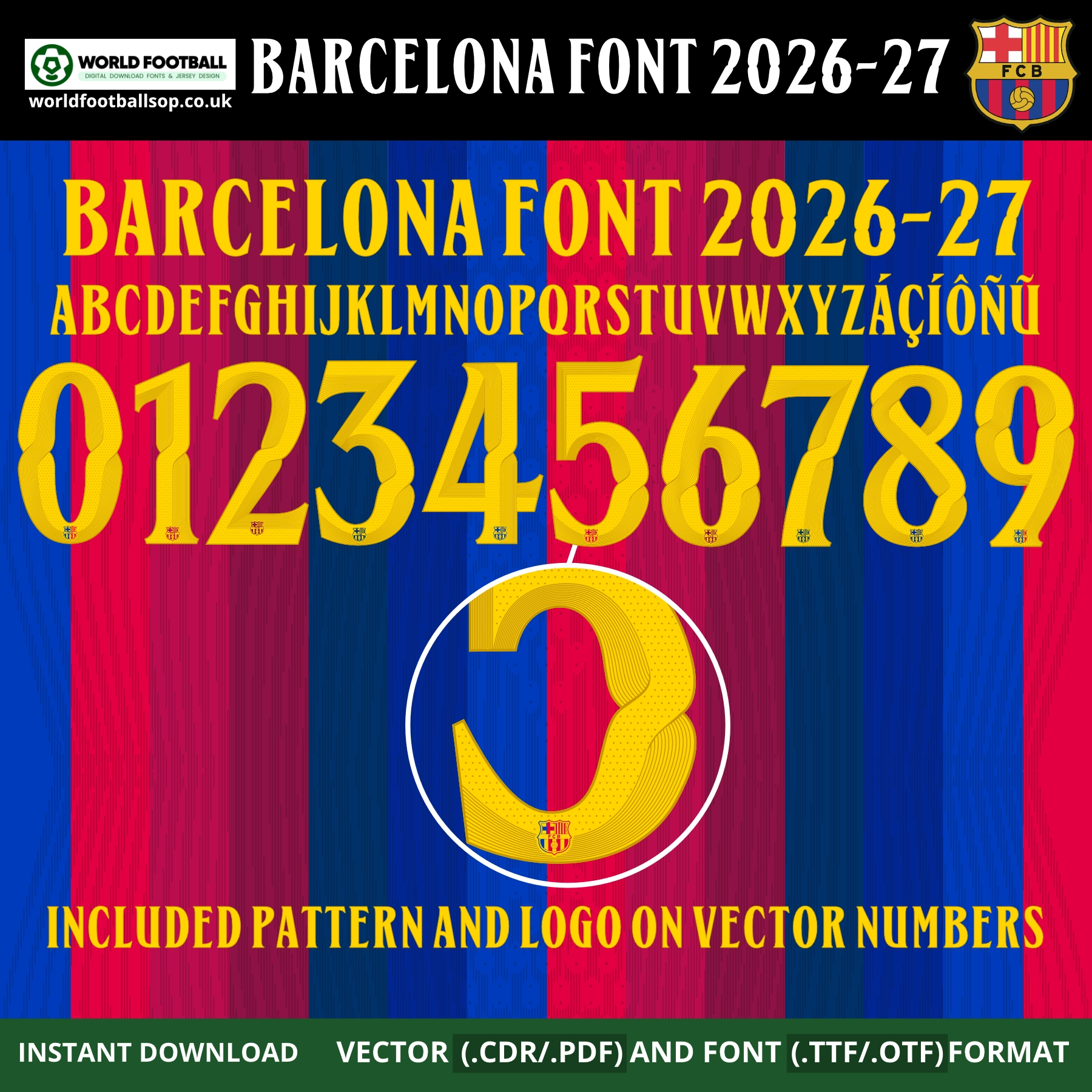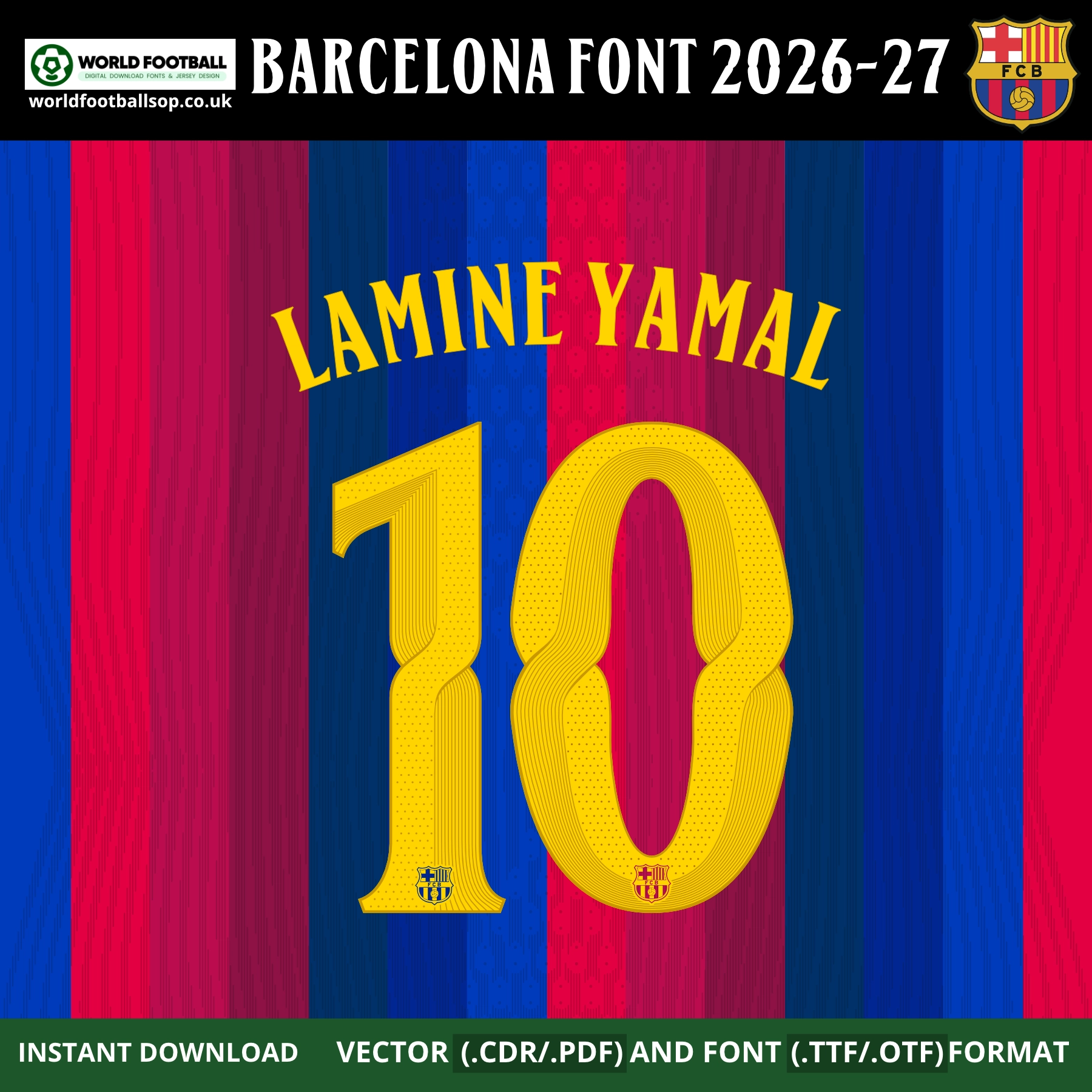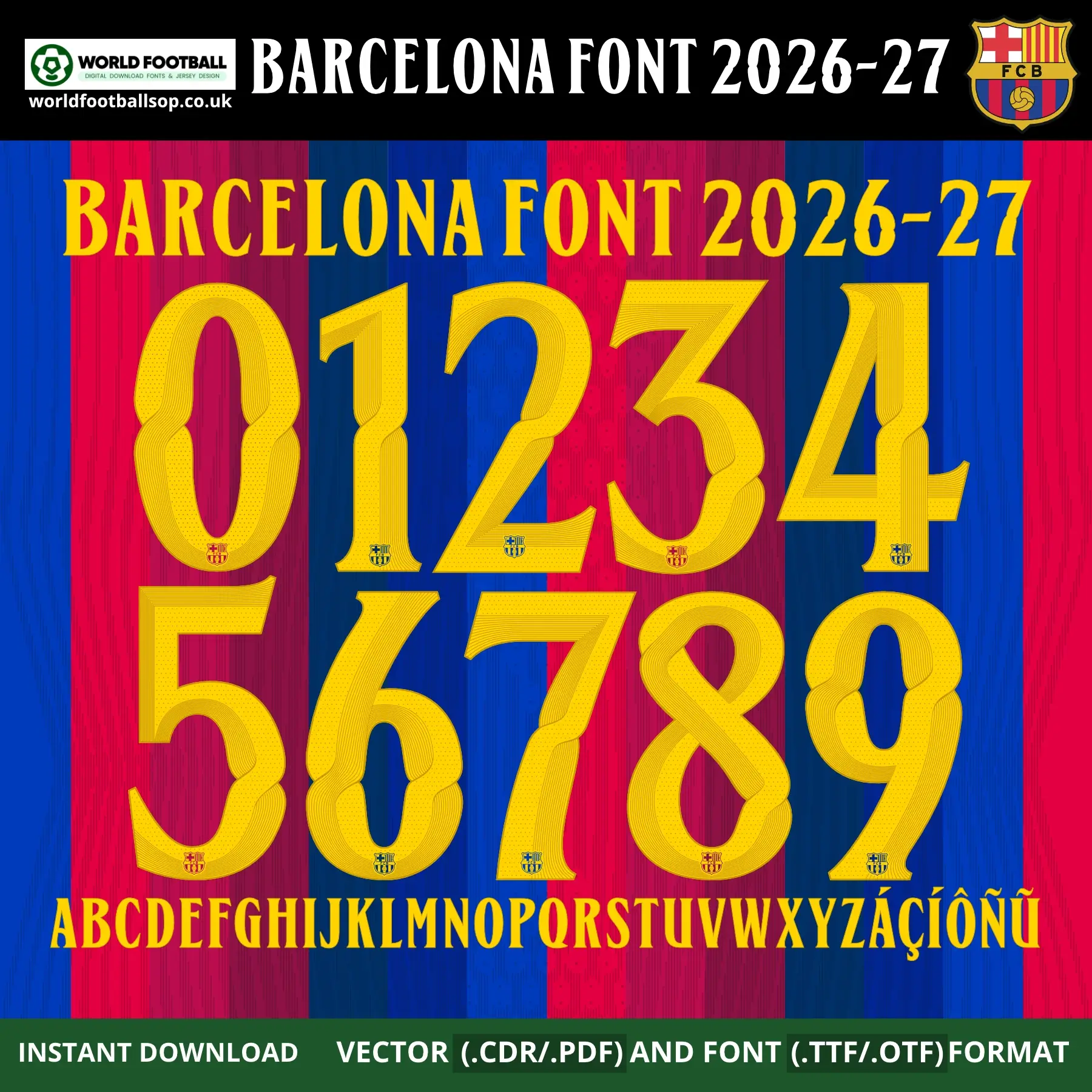
Official-style FC Barcelona 2026-27 UCL jersey font — bold yellow lettering with the multi-layer contour effect, full A–Z with accents and 0–9 numbers. Instant download: TTF, OTF and vector (CDR, PDF), Barça crest included on vector numbers.
Barcelona Font UCL 2026-27 – Official‑style Jersey Typography
This Barcelona Font UCL 2026-27 recreates the bold, decorative lettering used on FC Barcelona’s iconic blaugrana home shirts for the 2026-27 UEFA Champions League season at the Spotify Camp Nou. The tall, elegant numbers and letters feature a vibrant yellow fill with a fine multi-layered contour effect running through each character, giving the font a textured, premium look that mirrors Barça’s unmistakable kit identity. Set against the classic blue and red vertical stripes, this font is perfect for fans, designers and print shops who want authentic-looking names and numbers on custom Barcelona jerseys and football graphics.
The font football is supplied in both desktop formats (TTF/OTF) and scalable vector files so you can work comfortably in your favourite design software. The bright yellow lettering on the bold blue and red Barcelona home kit background seen in the previews mirrors FC Barcelona’s official 2026-27 colour palette, making your mockups and prints look instantly match-ready. Every vector number includes the embedded Barça crest logo for maximum authenticity, and the pack also includes the decorative interior pattern shown on the preview numbers.
Full uppercase alphabet A-Z and numbers 0-9 with extended accents (Á, À, Ç, É, Í, Ñ, Ó, Ö, Ú, Ü)
UCL accuracy: Inspired by the exclusive Barcelona Font UCL 2026-27, not a generic typeface
Pattern + crest included: Vector numbers include both the interior decorative pattern and Barça crest for a premium authentic look
High legibility: Bright yellow forms with layered contour detailing keep numbers clear on both TV and print designs while maintaining Barça’s iconic blaugrana identity
Whether you are designing a full squad of custom Barcelona shirts or a single fan jersey with your own name and number, this Barcelona Font UCL 2026-27 gives your project a professional, Camp Nou-worthy look.